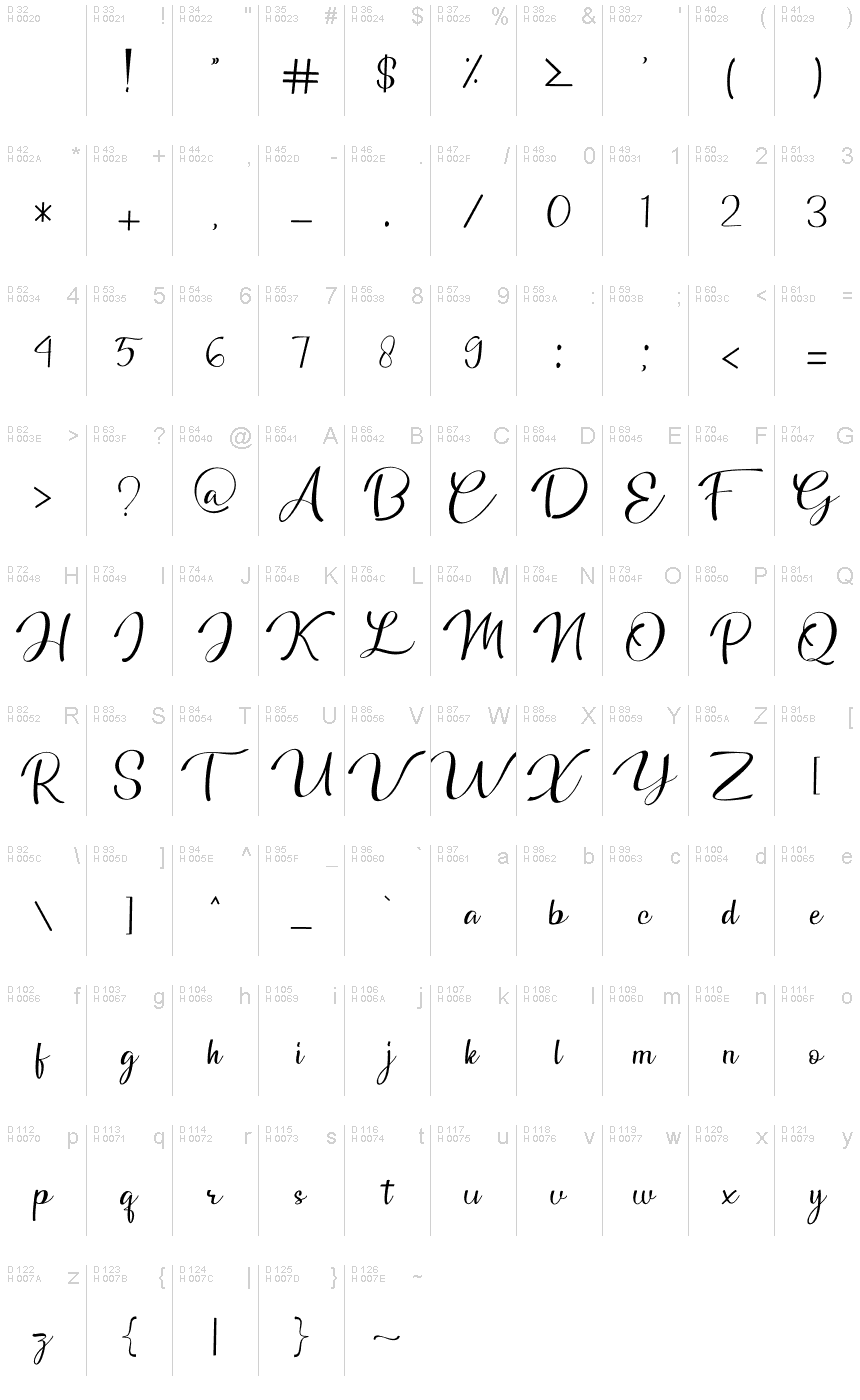
Headland Script
introduce my latest font, Headland scipt. it's a script font that has a lot of stylistic alternet features.
namely: stylistic alternate 01
stylistic alternate 02
stylistic alternate 03
stylistic alternate 04
stylistic alternate 05
and swash
This font is very neat and artistic and aesthetic, although I present this font in a preview of classic and vintage nuances, but this font is also suitable for modern things.
This font is also equipped by multilingual support !!!